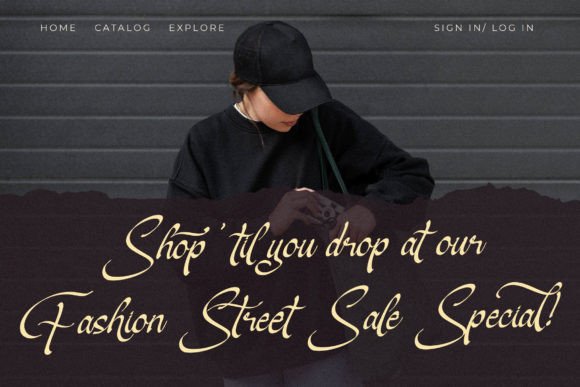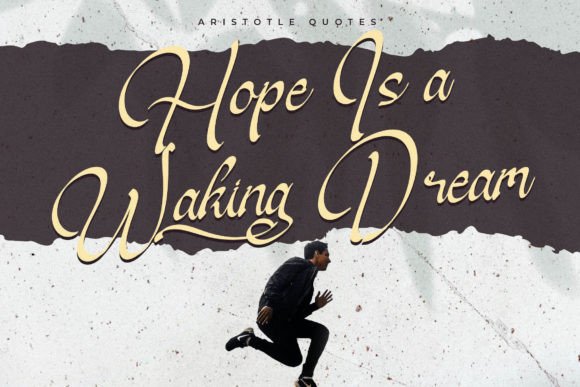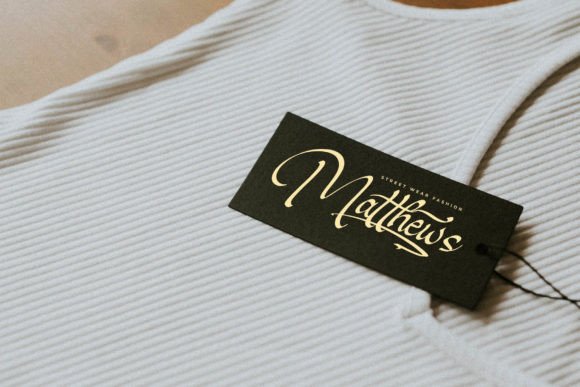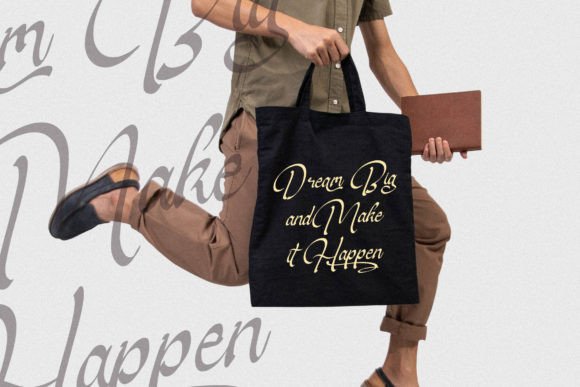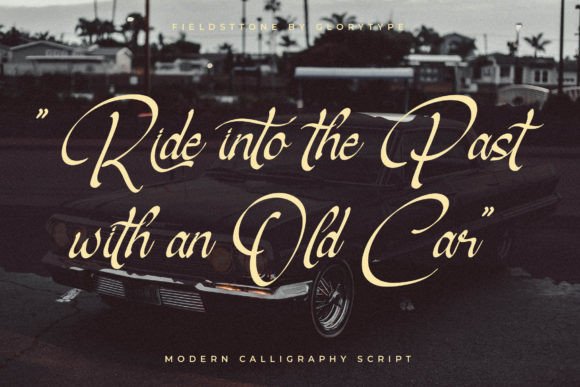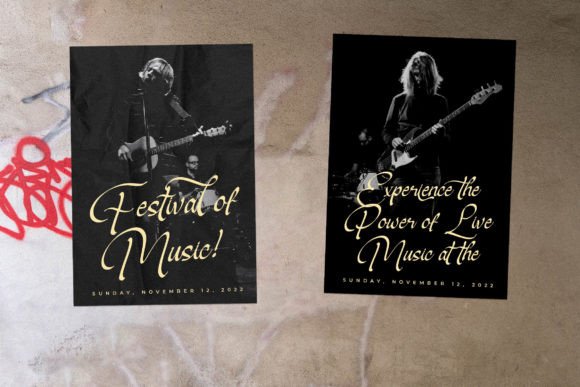
Introducing Fieldstone Font: The Epitome of Elegance and Sophistication
Are you on the hunt for a font that exudes class, sophistication, and a touch of modernity? Look no further than Fieldstone Font, a breathtakingly beautiful handwritten font that is sure to capture your heart. With its masterful blend of traditional calligraphic influences and contemporary flair, Fieldstone Font is the perfect addition to any design project.
The Story Behind Fieldstone Font
Fieldstone Font is more than just a font – it’s an exquisite piece of art that has been carefully crafted to evoke a sense of luxury and refinement. Its creator, with a keen eye for detail and a deep understanding of typography, has poured their heart and soul into designing a font that is both timeless and trendy. The result is a font that feels fresh and modern, yet still pays homage to the classic calligraphic styles of the past.
What Makes Fieldstone Font So Special?
So, what sets Fieldstone Font apart from other fonts on the market? Here are just a few of its standout features:
- Classy Calligraphic Influences: Fieldstone Font boasts elegant, flowing lines that are reminiscent of traditional calligraphy. Its subtle flourishes and refined letterforms evoke a sense of sophistication and poise.
- Contemporary and Fresh: Despite its classic influences, Fieldstone Font feels surprisingly modern and fresh. Its clean lines, subtle curves, and expertly crafted letterforms make it perfect for designers who want to add a touch of elegance to their projects.
- Versatile and Adaptable: Fieldstone Font is incredibly versatile, making it suitable for a wide range of design applications. Whether you’re working on a logo, branding project, or marketing materials, Fieldstone Font is sure to impress.
How to Use Fieldstone Font in Your Design Projects
Ready to fall in love with Fieldstone Font and bring your projects to the next level? Here are a few ideas to get you started:
- Logos and Branding: Use Fieldstone Font to create a stunning logo or brand identity that exudes elegance and sophistication.
- Wedding and Event Design: Add a touch of romance and whimsy to your wedding or event designs with Fieldstone Font’s beautiful, flowing lines.
- Marketing and Advertising: Use Fieldstone Font to create eye-catching marketing materials, such as brochures, flyers, and social media graphics.
- Packaging and Product Design: Add a touch of luxury to your product packaging with Fieldstone Font’s refined, sophisticated letterforms.
Tips and Tricks for Getting the Most Out of Fieldstone Font
To help you get the most out of Fieldstone Font, here are a few expert tips and tricks:
- Experiment with Font Sizes: Fieldstone Font looks stunning in a variety of font sizes, from large and bold to small and delicate. Experiment with different sizes to find the perfect fit for your project.
- Play with Color: Fieldstone Font looks beautiful in a range of colors, from rich and bold to soft and pastel. Experiment with different colors to find the perfect match for your brand or design.
- Pair it with Other Fonts: Fieldstone Font pairs beautifully with other fonts, including sans-serif and serif fonts. Experiment with different font combinations to create a unique and eye-catching design.
In conclusion, Fieldstone Font is a truly exquisite handwritten font that is sure to capture your heart. With its masterful blend of traditional calligraphic influences and contemporary flair, Fieldstone Font is the perfect addition to any design project. Whether you’re a designer, crafter, or simply someone who appreciates beautiful typography, Fieldstone Font is sure to inspire and delight. So why wait? Fall in love with Fieldstone Font today and bring your projects to the highest levels!